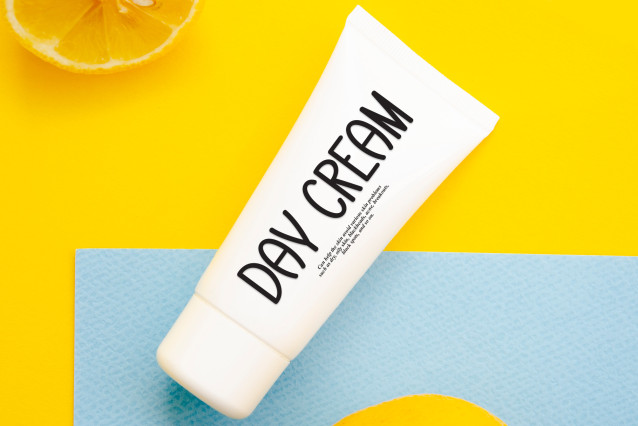
Summer Melody Display Font
Summer Melody Display Font is a sweet and friendly handwritten font. Its natural and unique style makes it incredibly fitting to a large pool of designs. The only limit is your imagination!